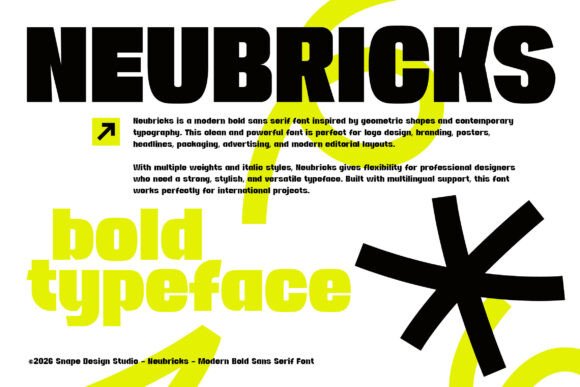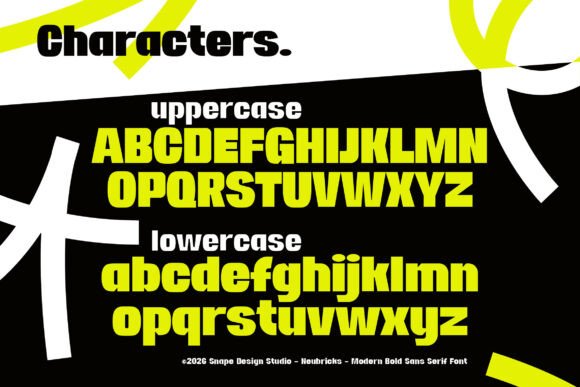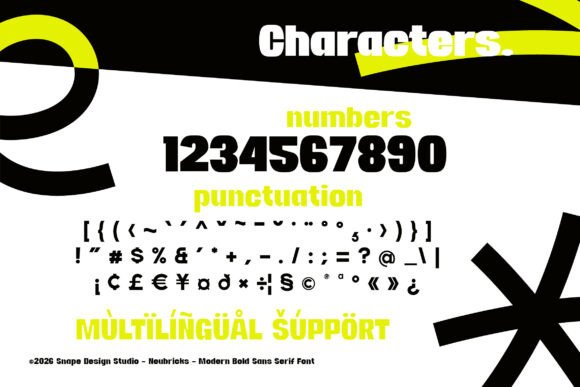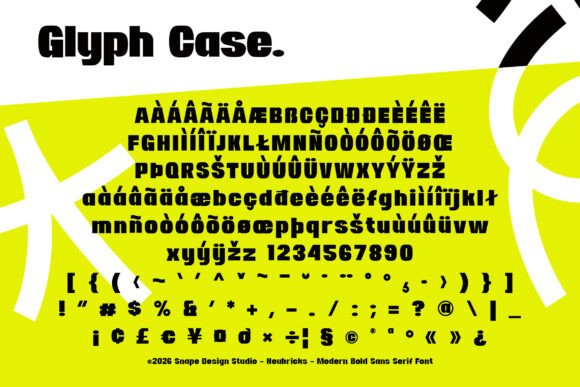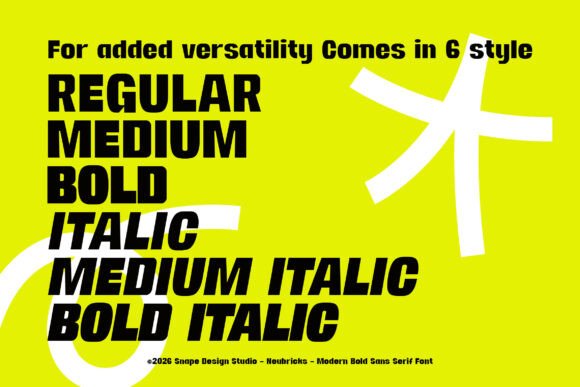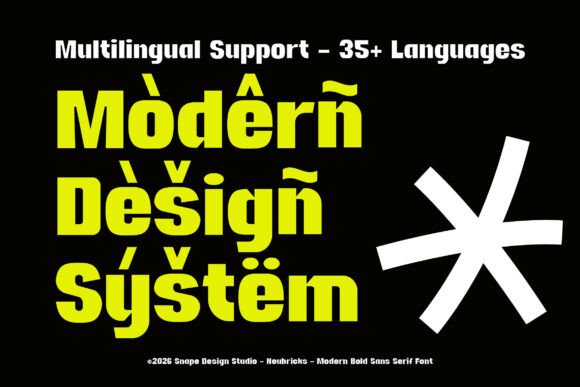
Introduction to Neubricks Font
Neubricks is a modern bold sans serif font inspired by geometric shapes and contemporary typography.
This clean and powerful font is perfect for logo design, branding, posters, headlines, packaging, advertising, and modern editorial layouts With multiple weights and italic styles, Neubricks gives flexibility for professional designers who need a strong, stylish, and versatile typeface.
Key Features of Neubricks Font
Why Choose Neubricks Font?
Neubricks Font offers exceptional quality and versatility, making it a valuable addition to your design toolkit. Whether you’re creating for personal projects or commercial use, Neubricks Font delivers professional results.